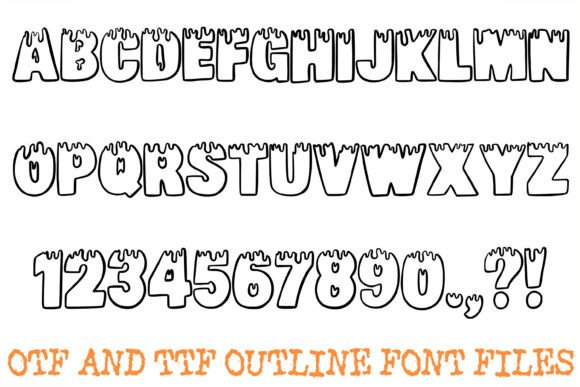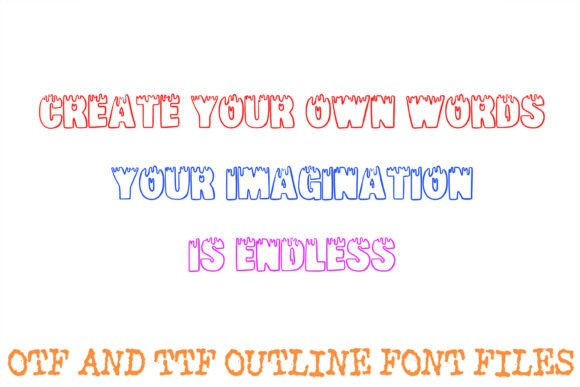
Introduction to Melting Letters Font
The Melting Letters Font is a bold, expressive display typeface characterized by its thick, rounded forms and fluid “melting” terminals.
With liquid-like drips cascading from the top of each character, this font is an ideal choice for designers working on ice cream parlor branding, summer festival posters, edgy street-style apparel, and playful horror-themed graphics The design captures a sense of slow, viscous movement, where the heavy weight of the letters is balanced by the organic, gravity-defying drips.
Key Features of Melting Letters Font